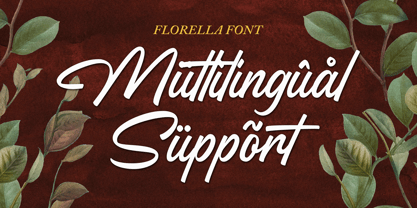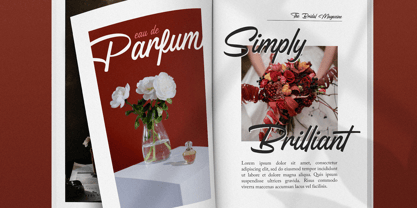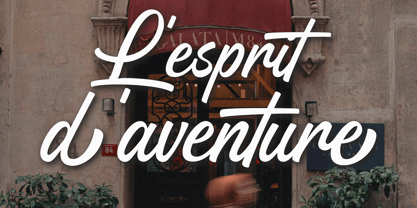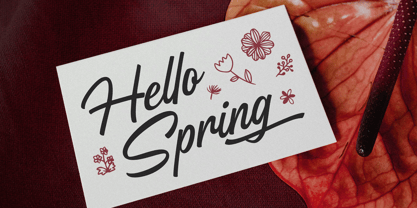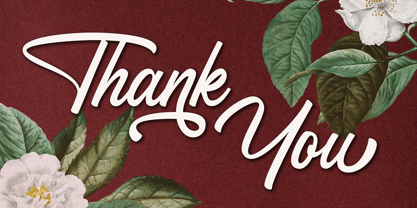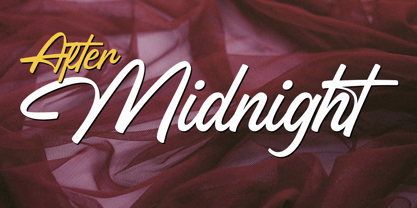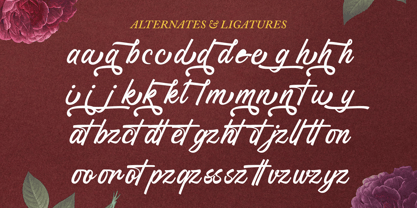
Florella
by Krafted
The Florella Font Family was designed by Heri Imanudin and published by Krafted. Florella contains 1 styles. More about this family
Introducing Florella – A Modern and Elegant Script Typeface.
This handcrafted, graceful typeface is perfect for a wide range of projects and promotions. Use it on your website, for your social media branding, Pinterest banners, printed invitations, and so much more!
Inspire your audience, clients, or guests with this modern, stylish script font.